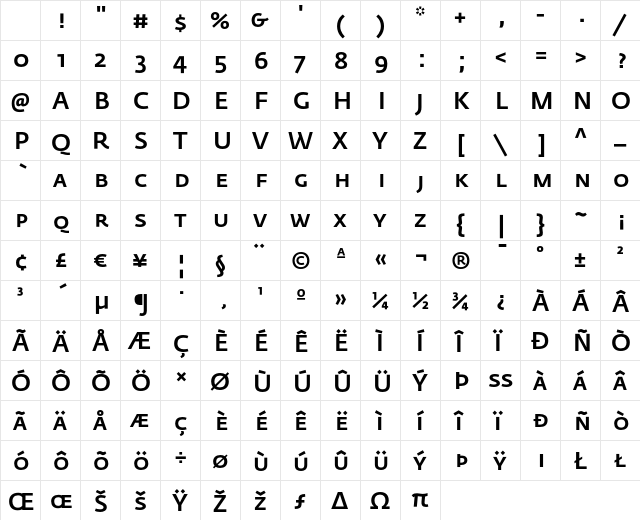
Complete Fedra Sans Medium SC glyph index. Displaying only characters natively supported by Fedra Sans Medium SC font.
Fedra Sans is a composed and adaptable typeface that performs quietly and consistently across a wide range of design contexts.